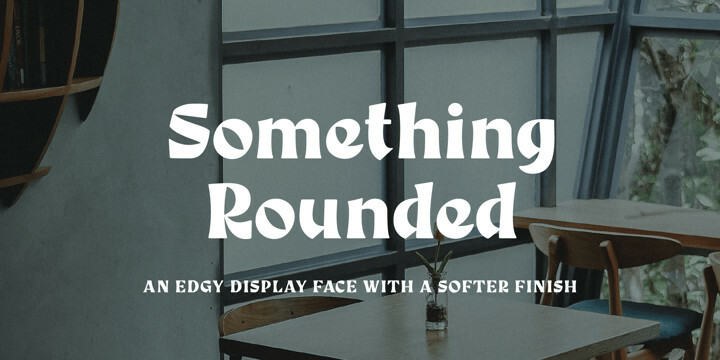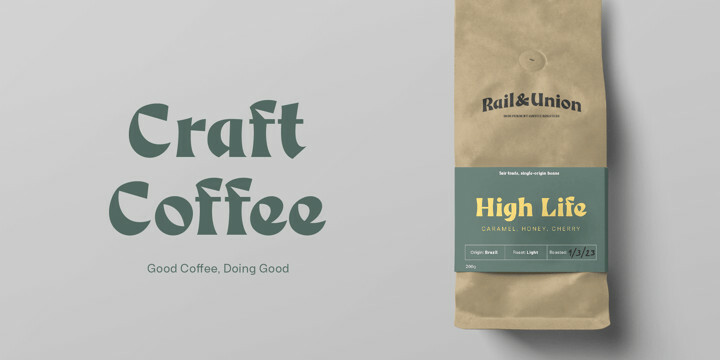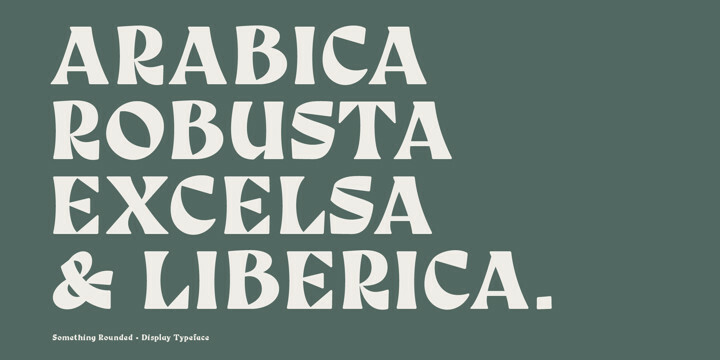
Something Rounded Font Family
Something Rounded Font FamilySomething Rounded is a soft version of Something New and has been designed with logo designers and typographers firmly in mind. This feature-packed display font is a perfect addition to your design arsenal, ready for your next logo wordmark, heavy headings, or coffee labels.
“A stylish mix of serif and blackletter”
Great for; logos, branding materials, business cards, gift cards, t-shirts, prints, posters, quotes, etc.